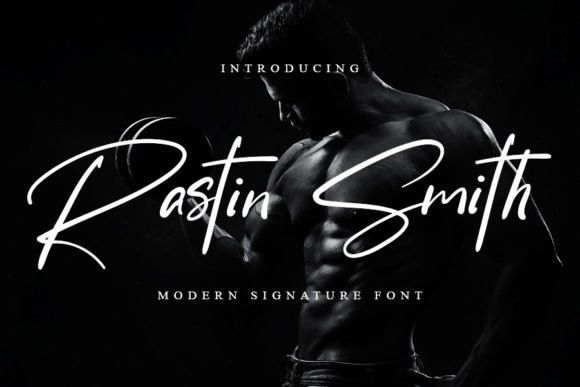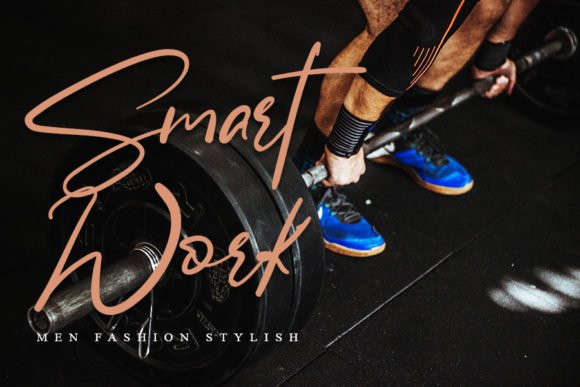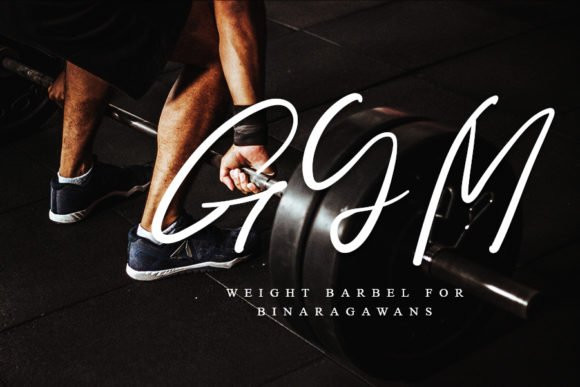
Rastin Smith Font
Rastin Smith is a stylish and incredibly elegant script font. It looks stunning on wedding invitations, thank you cards, quotes, greeting cards, logos, business cards and every other design which needs a trendy touch.